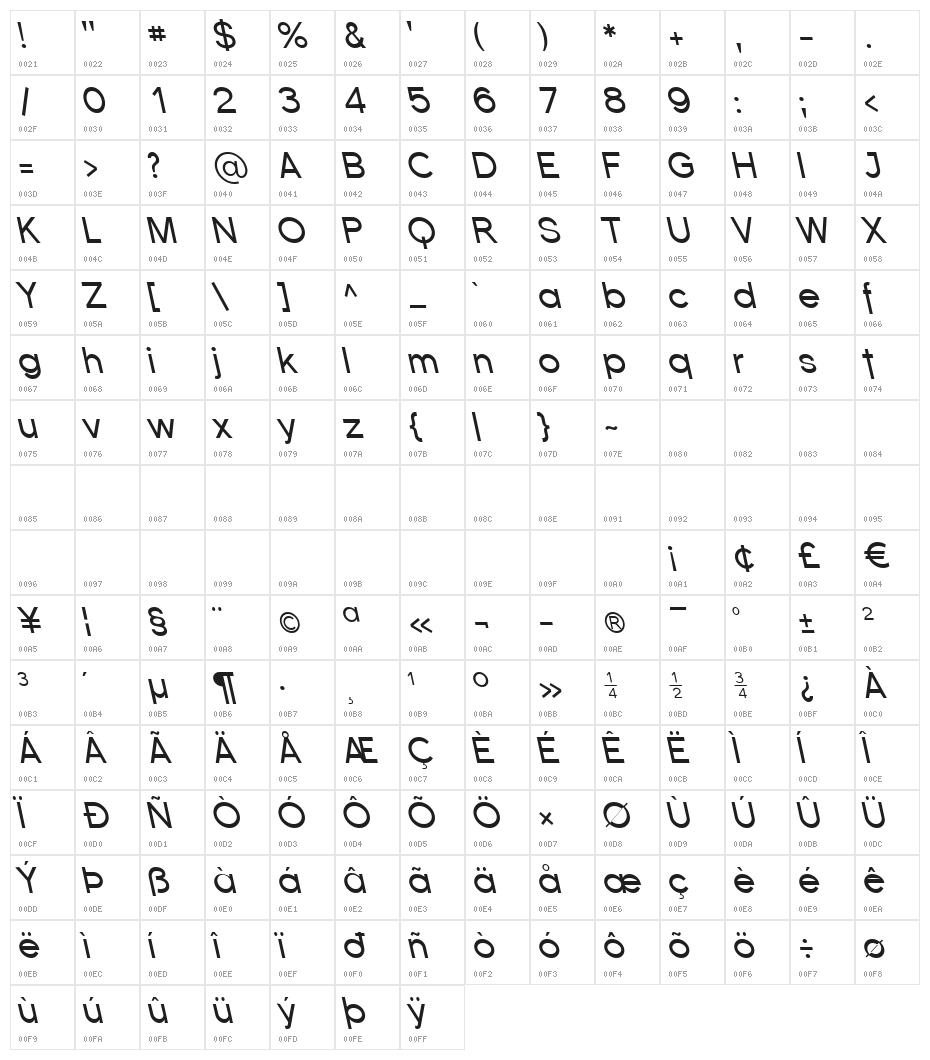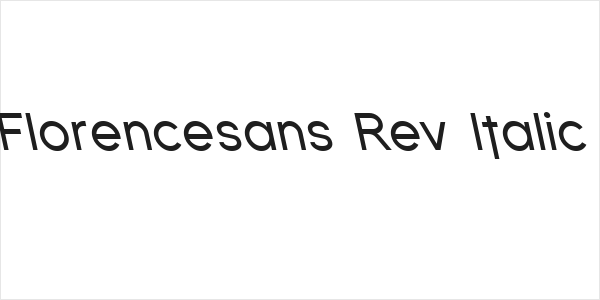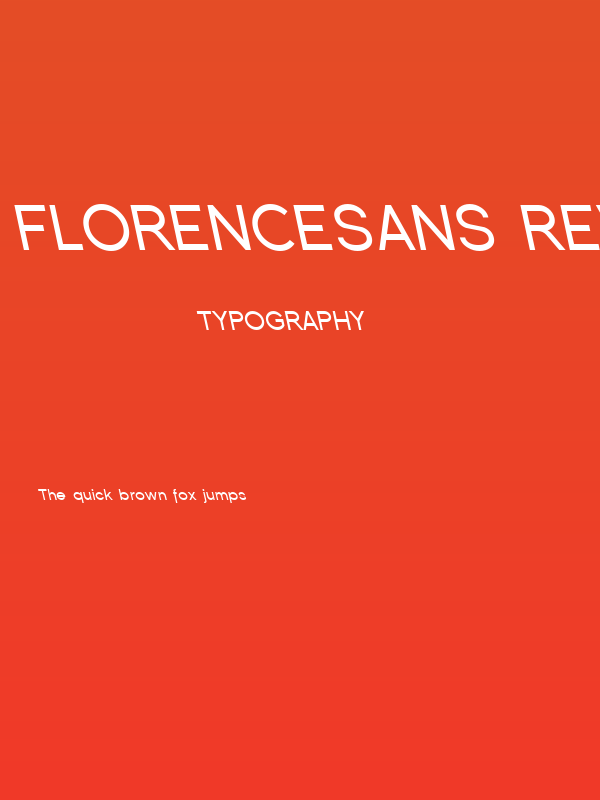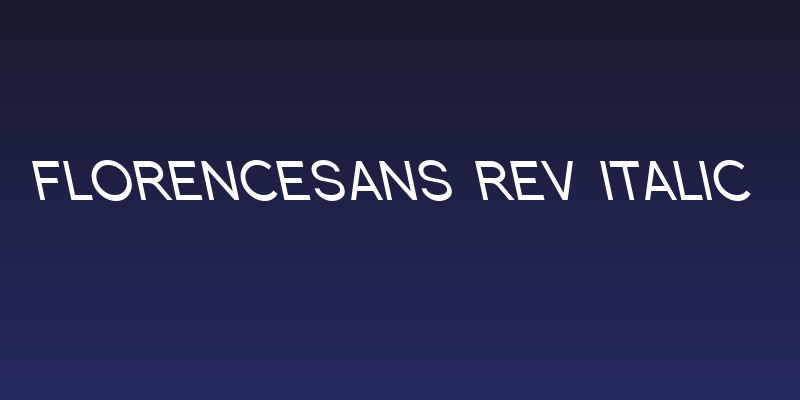
Florencesans Rev Italic Font
Florencesans Rev Italic Description
This font features a clean and modern sans-serif design with a slight italic slant, giving it a dynamic and contemporary feel. The characters are well-proportioned with consistent stroke widths, contributing to its readability and versatility. Uppercase and lowercase letters are distinct and balanced, while numerals are clear and easily distinguishable. The special characters are designed to complement the overall style, maintaining uniformity across the set. This font's simplicity and elegance make it suitable for a wide range of applications, from digital to print media.